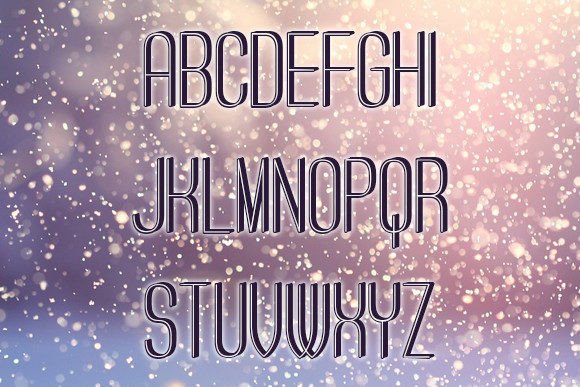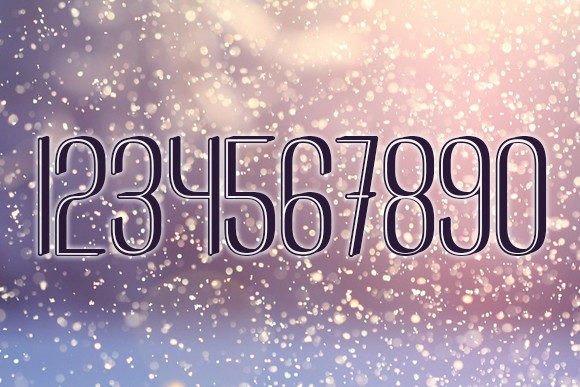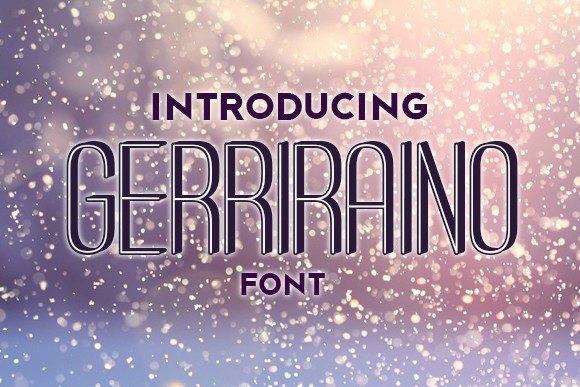
Introducing Gerriraino Font: Elevate Your Designs with Stylish 3D Flair
In the world of typography, fonts play a crucial role in conveying messages, evoking emotions, and setting the tone for a brand or design. For designers and crafters looking to add a touch of sophistication and modernity to their work, the Gerriraino Font is an excellent choice. This stylish 3D display font, characterized by its round edges, is perfect for creating eye-catching banners and headlines that demand attention.
What Makes Gerriraino Font Stand Out?
Gerriraino Font is not just another addition to the vast sea of typefaces. Its unique features make it a standout choice for various design projects. Here are a few reasons why Gerriraino should be on your radar:
• Stylish 3D Display: Gerriraino boasts a stunning 3D effect that adds depth and dimension to your text. This makes it particularly effective for headlines, titles, and banners where you want to grab the viewer’s attention.
• Round Edges: The font’s round edges give it a soft, approachable feel. This characteristic makes Gerriraino versatile for use in designs that require a friendly or playful tone, without compromising on style or professionalism.
• Versatility: Despite its specific 3D and rounded features, Gerriraino can be adapted to various design contexts. Whether you’re working on a website header, a product label, or a social media graphic, this font can be tailored to fit your project’s needs.
Perfect for Banners and Headlines
Banners and headlines are critical elements in any design, as they are often the first things a viewer notices. With Gerriraino Font, you can create these elements with impact. The font’s 3D effect and round edges combine to produce a visually appealing text that stands out against any background. Here are some tips on using Gerriraino for banners and headlines:
• Contrast is Key: Ensure that your Gerriraino text has sufficient contrast with the background to maintain readability and make the 3D effect pop.
• Play with Colors: The 3D effect of Gerriraino allows for interesting color schemes. Experiment with gradients or shadow effects to enhance the three-dimensional appearance.
• Size Matters: While Gerriraino is designed for display purposes, be mindful of the size you use. Larger sizes will emphasize the 3D and rounded features, making it perfect for banners and prominent headlines.
Who Can Benefit from Gerriraino Font?
Gerriraino Font is a valuable resource for a wide range of professionals and hobbyists, including:
• Graphic Designers: Looking for a modern and stylish font to use in client projects, such as logos, branding materials, and advertisements.
• Web Designers: Seeking to create engaging and interactive web content with eye-catching headlines and banners.
• Digital Artists and Crafters: Interested in adding a unique touch to their digital art, blogs, or social media posts.
• Marketing Professionals: Needing to create compelling and visually appealing marketing materials that capture the audience’s attention.
Gerriraino Font offers a unique blend of style, modernity, and versatility, making it an excellent addition to any designer’s toolkit. Its stylish 3D display and round edges ensure that your banners and headlines not only stand out but also contribute to a cohesive and engaging visual identity. Whether you’re a professional designer or a crafting enthusiast, Gerriraino Font is poised to elevate your designs and help you achieve your creative goals.